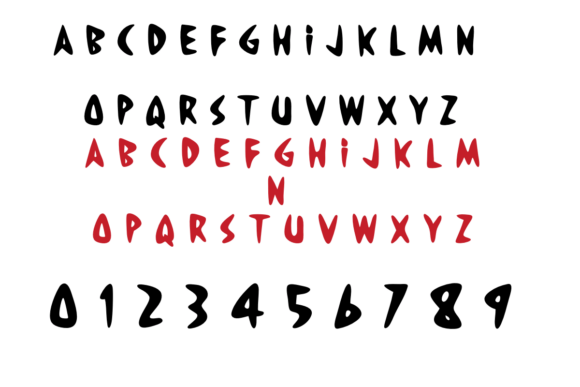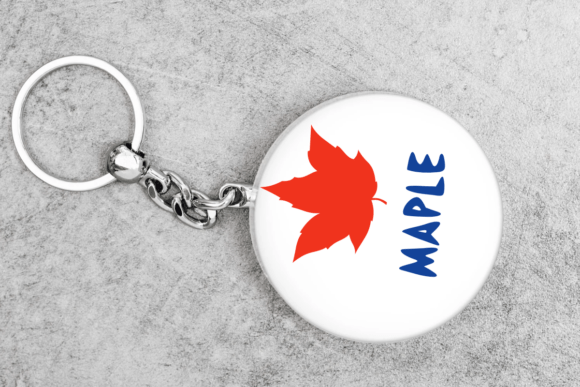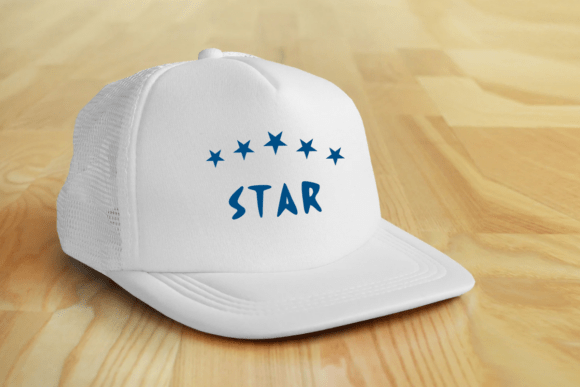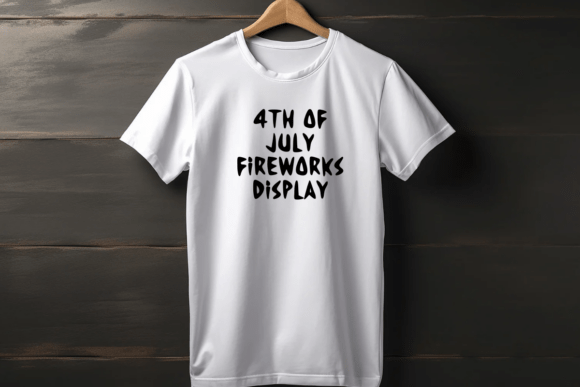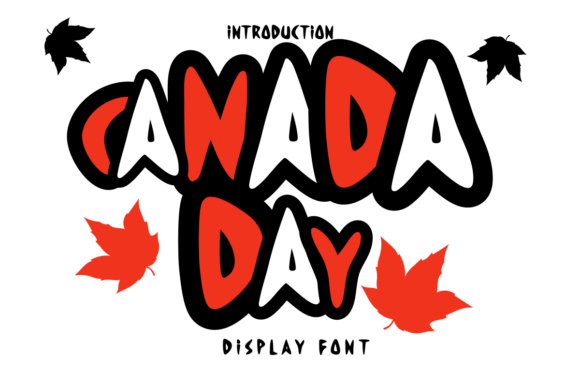
Introducing Canada Day Font: A Bold and Energetic Display Font for Patriotic Designs
Canada Day is just around the corner, and what better way to celebrate than with a font that’s as bold and energetic as the Great White North itself? Look no further than the Canada Day Font, a display font inspired by the country’s national pride and festive spirit. This chunky, cartoon-style font is perfect for creating eye-catching designs that scream “Happy Canada Day!”
What Makes Canada Day Font So Special?
The Canada Day Font is a one-of-a-kind display font that boasts thick, chunky letterforms with bold outlines, making it perfect for a variety of applications, including:
- Patriotic designs: Show off your Canadian pride with eye-catching posters, social media graphics, and flyers that feature the Canada Day Font.
- Event posters: Create bold and attention-grabbing posters for Canada Day events, festivals, and celebrations.
- Children’s crafts: The playful, cartoon-style lettering is perfect for kids’ crafts, activity sheets, and educational materials.
- Festive branding: Add a touch of Canadian charm to your brand’s packaging, labels, and marketing materials.
Key Features of Canada Day Font
Here are some key features that make the Canada Day Font a standout:
- Bold and chunky letterforms: Thick outlines and sturdy lettering make this font perfect for headlines and titles.
- Cartoon-style design: The playful, hand-drawn aesthetic gives the font a friendly and approachable feel.
- Easy to read: The font’s clear and simple design ensures that your message gets across, even from a distance.
Tips and Tricks for Using Canada Day Font
Here are some expert tips for getting the most out of the Canada Day Font:
- Pair with complementary fonts: Combine the Canada Day Font with simpler fonts, like Arial or Helvetica, to create visual interest and hierarchy.
- Experiment with colors: Try pairing the font with bold, bright colors like red and white to create a distinctly Canadian look.
- Use it for titles and headings: The Canada Day Font is perfect for grabbing attention, so use it for titles, headings, and key messages.
- Get creative with graphics: Add some Canadian flair to your designs with maple leaf graphics, mountains, or other iconic imagery.
Where to Use Canada Day Font
The Canada Day Font is versatile and can be used in a variety of contexts, including:
- Social media graphics: Create eye-catching Facebook and Twitter posts that showcase your Canadian pride.
- Poster design: Design bold and attention-grabbing posters for Canada Day events and celebrations.
- Branding and packaging: Add a touch of Canadian charm to your brand’s marketing materials and packaging.
- Crafting and DIY projects: Use the font to create custom signs, banners, and decorations for kids’ crafts and DIY projects.
The Canada Day Font is a bold, energetic, and fun display font that’s perfect for anyone looking to add a touch of Canadian pride to their designs. With its chunky, cartoon-style letterforms and thick outlines, this font is sure to make a statement. Whether you’re a designer, crafter, or simply a Canadian looking to show off your national pride, the Canada Day Font is the perfect tool for the job. So why wait? Download the Canada Day Font today and start creating your own patriotic masterpieces!